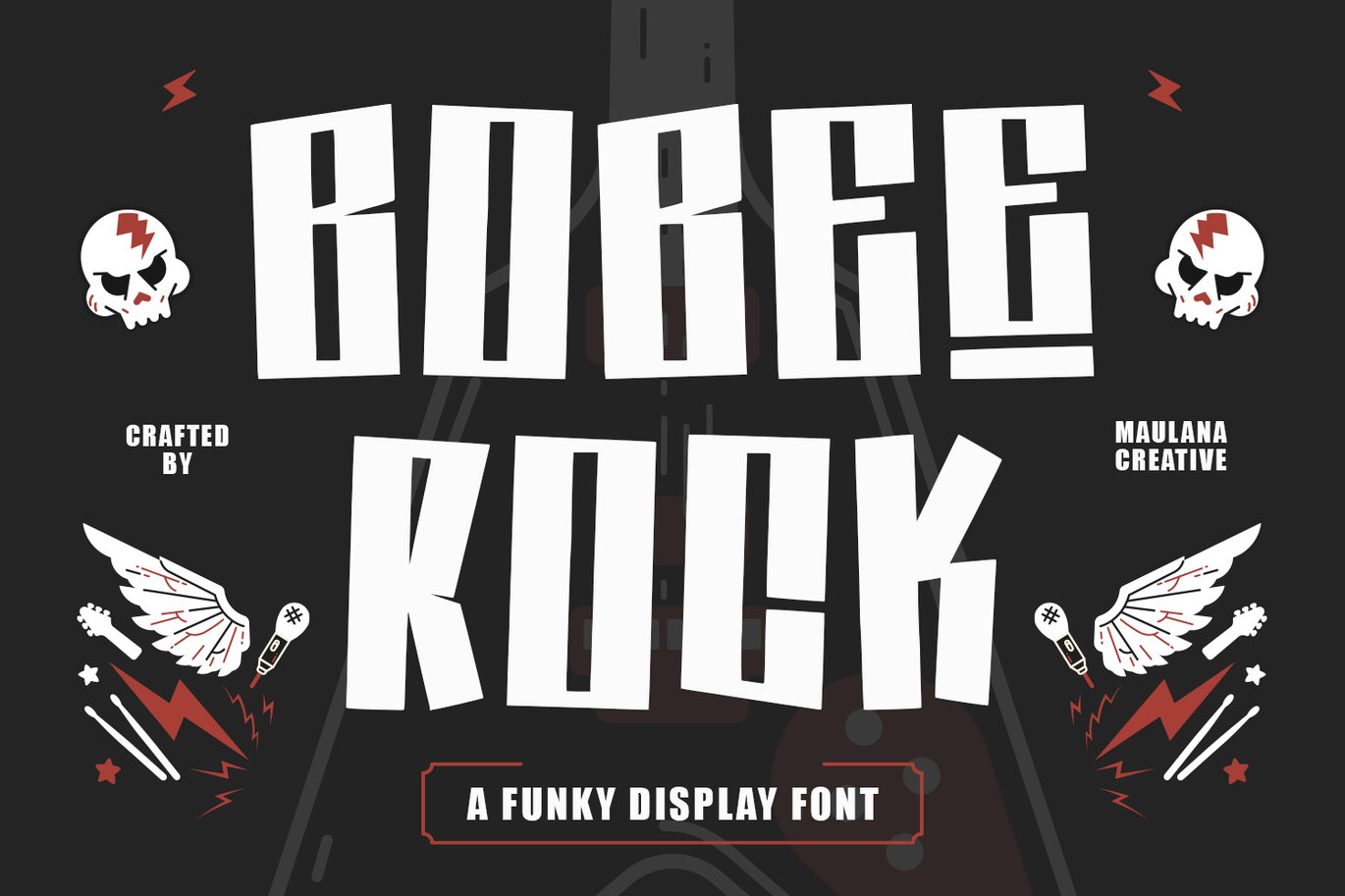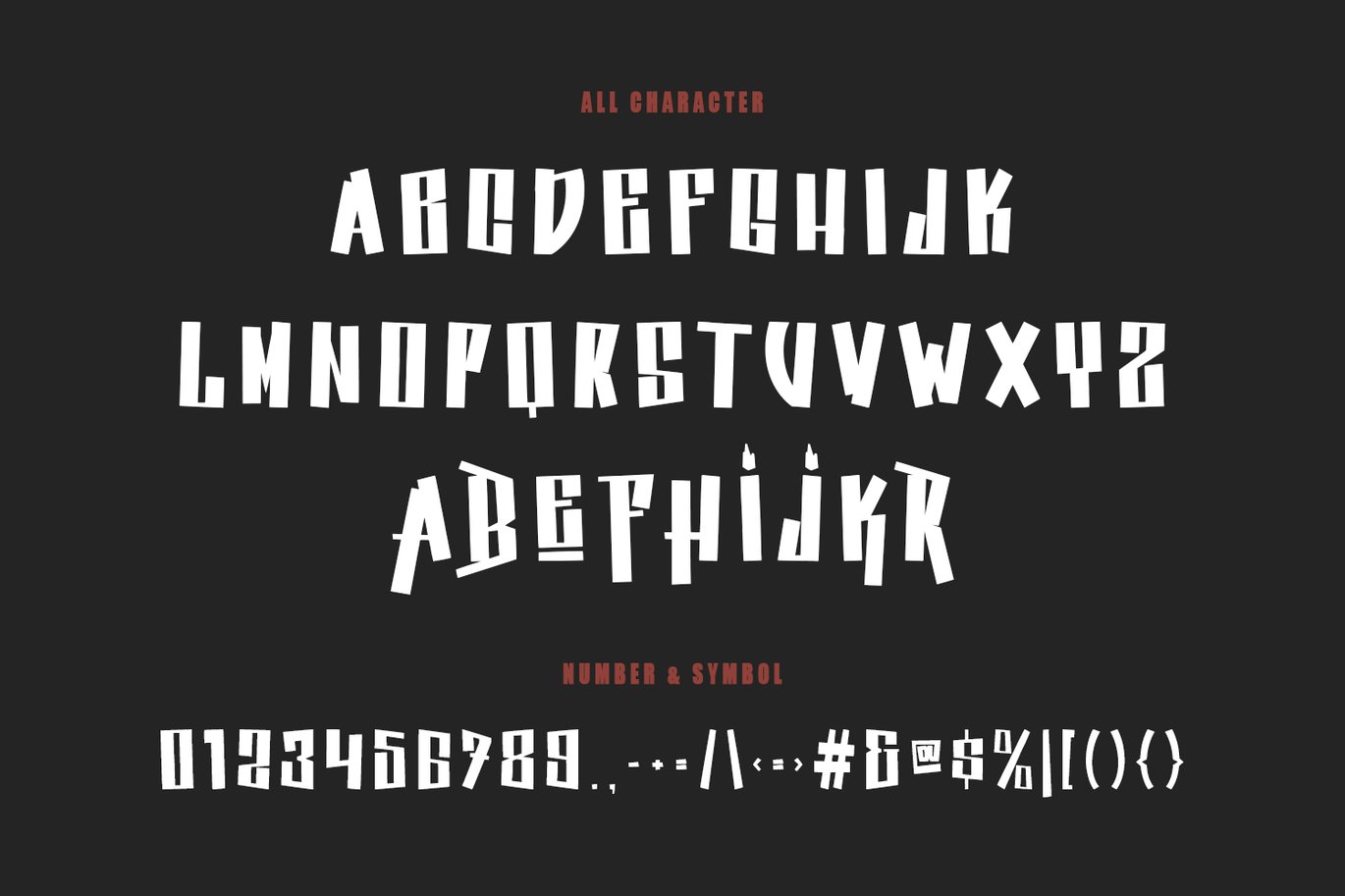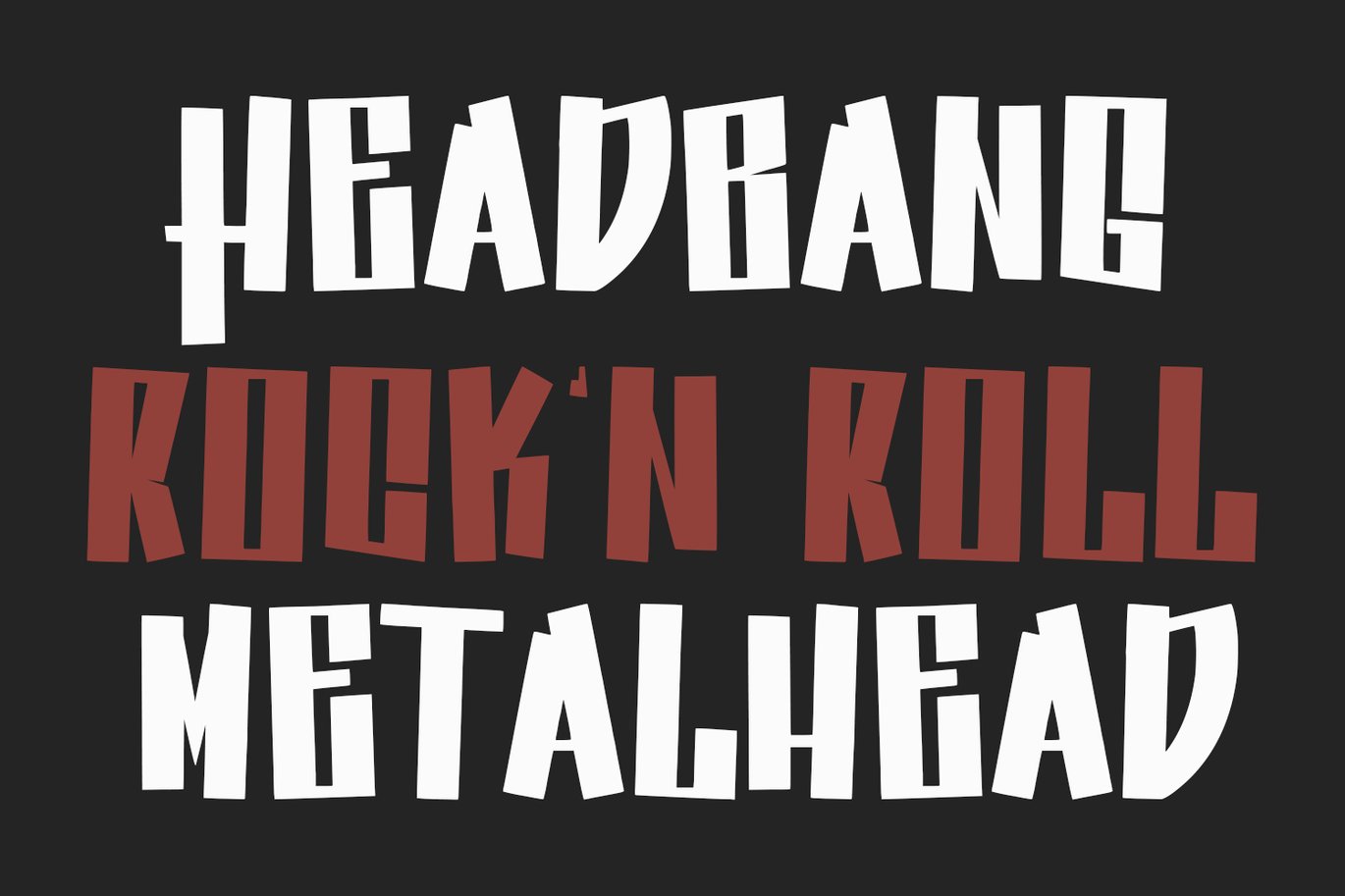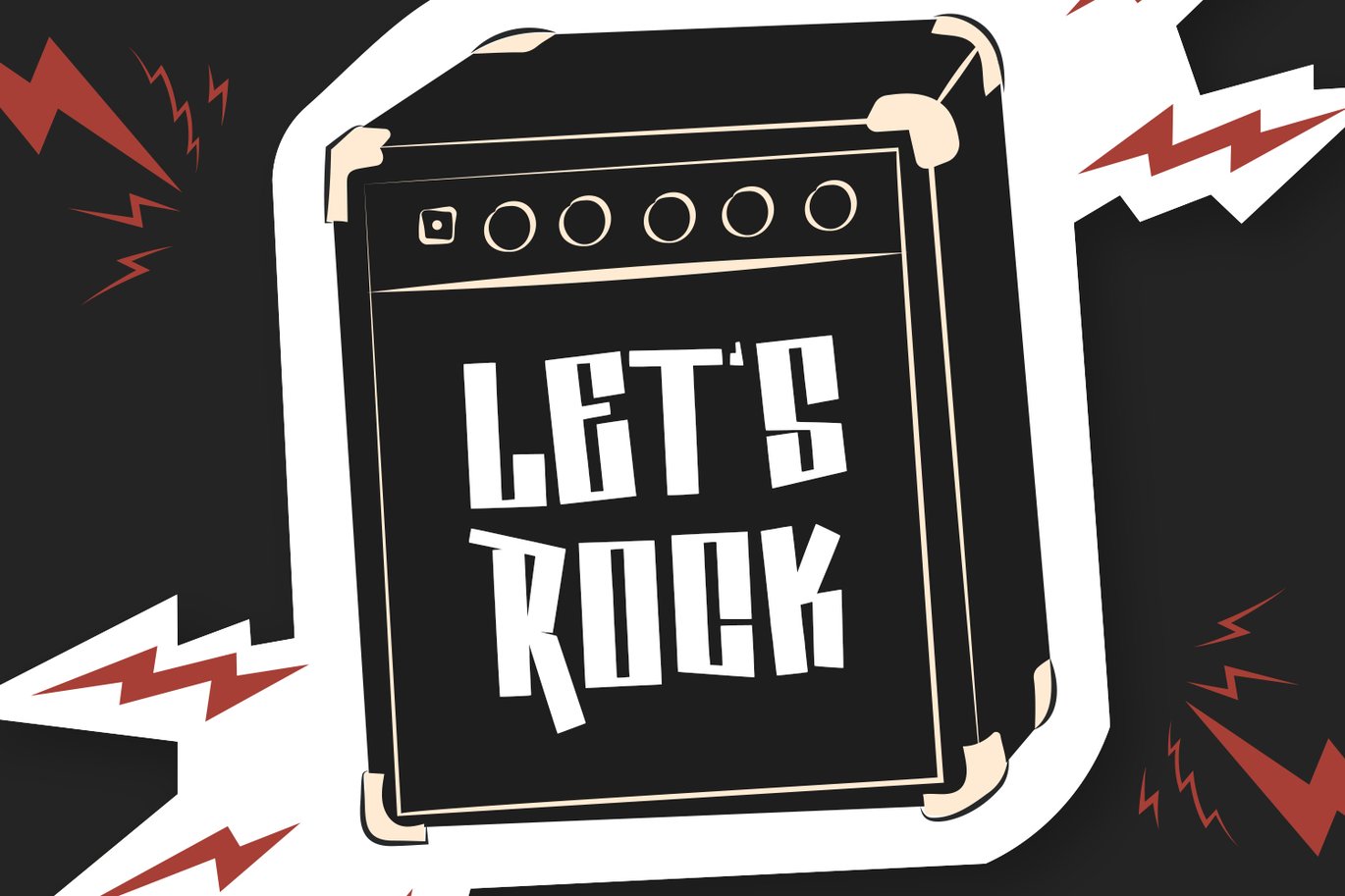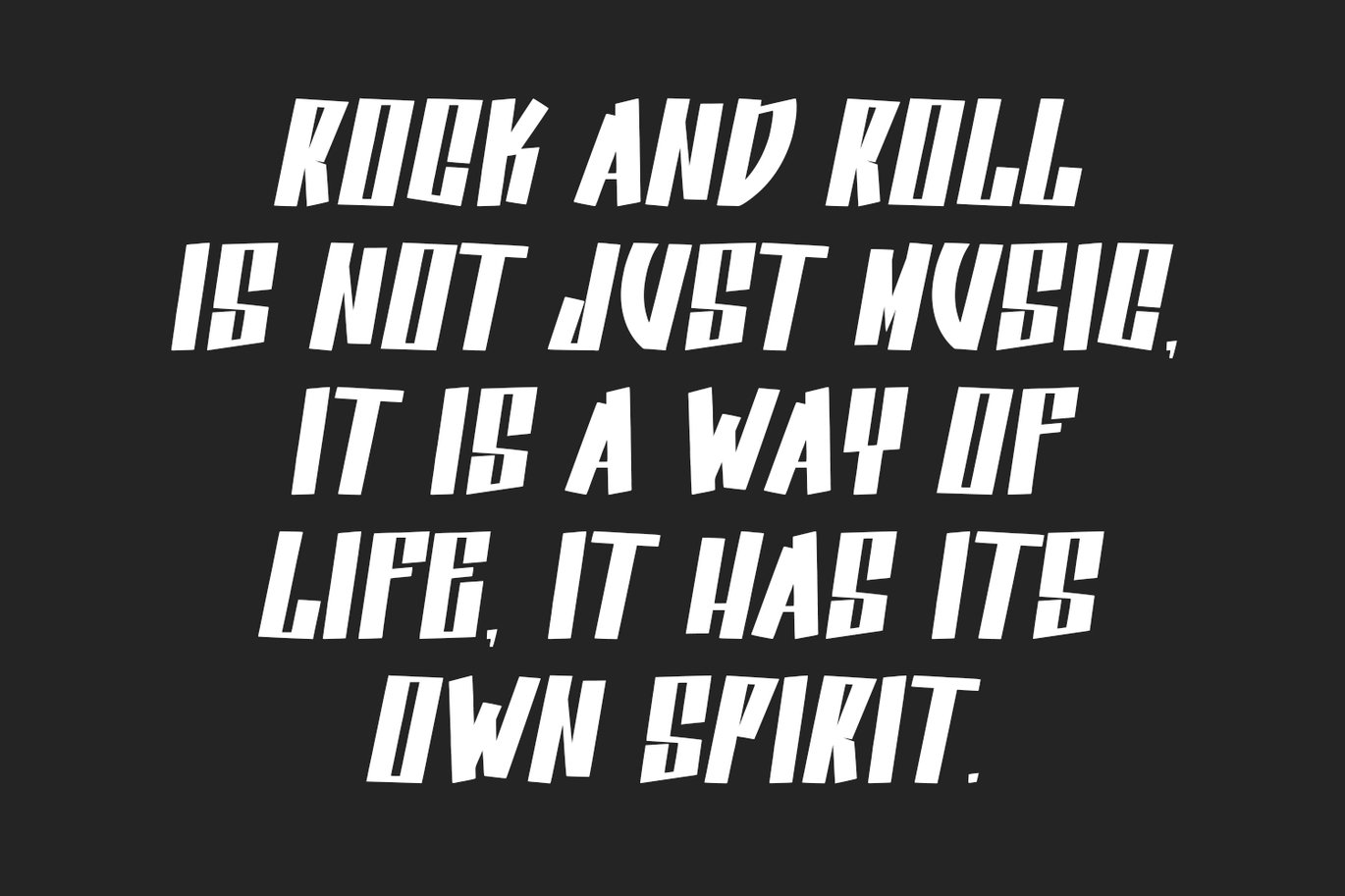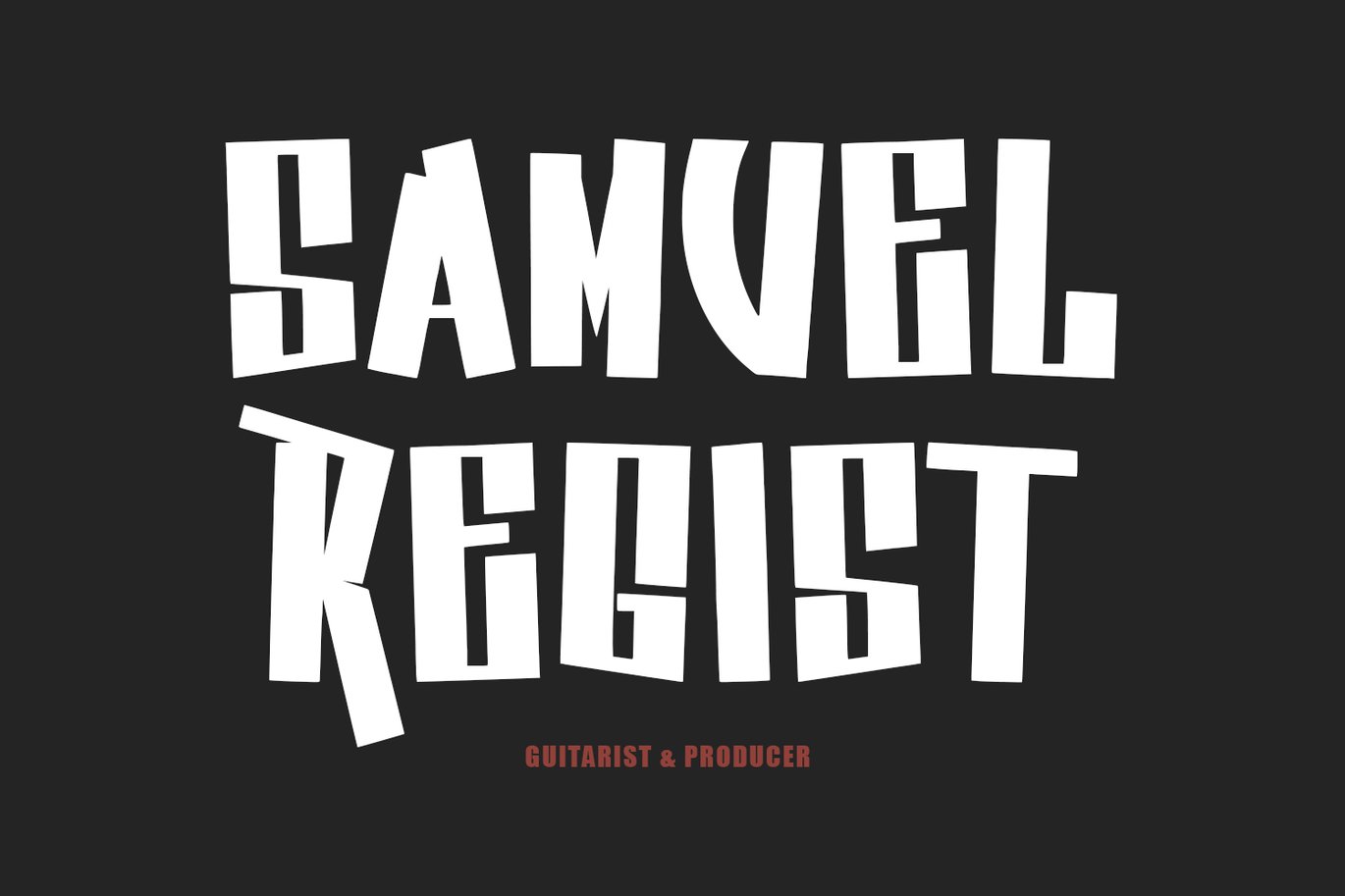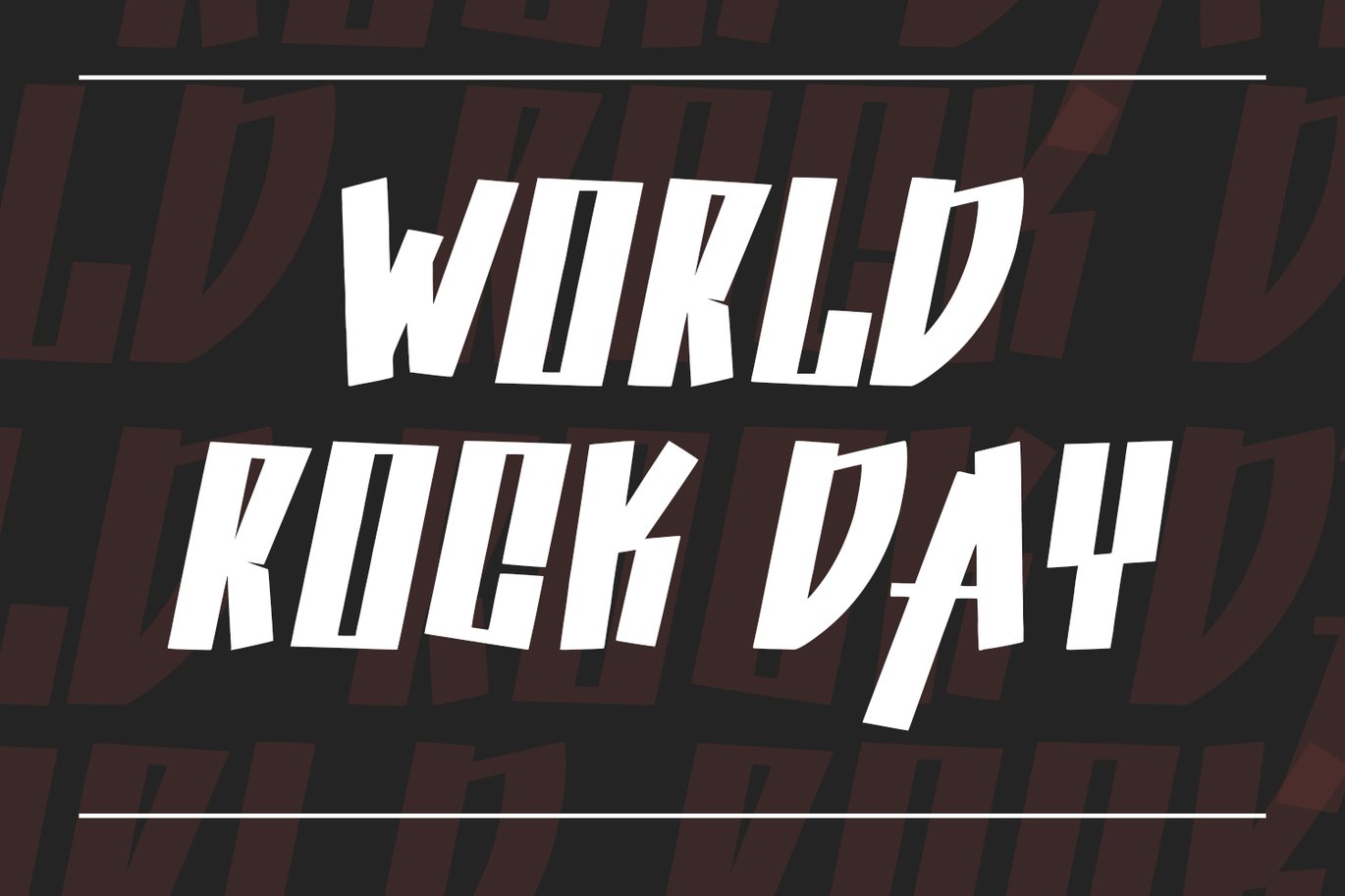
Bobee Rock Fun Display Font
Bobee Rock is a fun style font. With vintage stroke, fun character with alternates. To give you an extra creative work. Bobee Rock font support multilingual language. This font is good for logo design, Social media, Movie Titles, Books Titles, a short text even a long text letter and good for your secondary text font with sans or serif. Make a stunning work with Bobee Rock font.